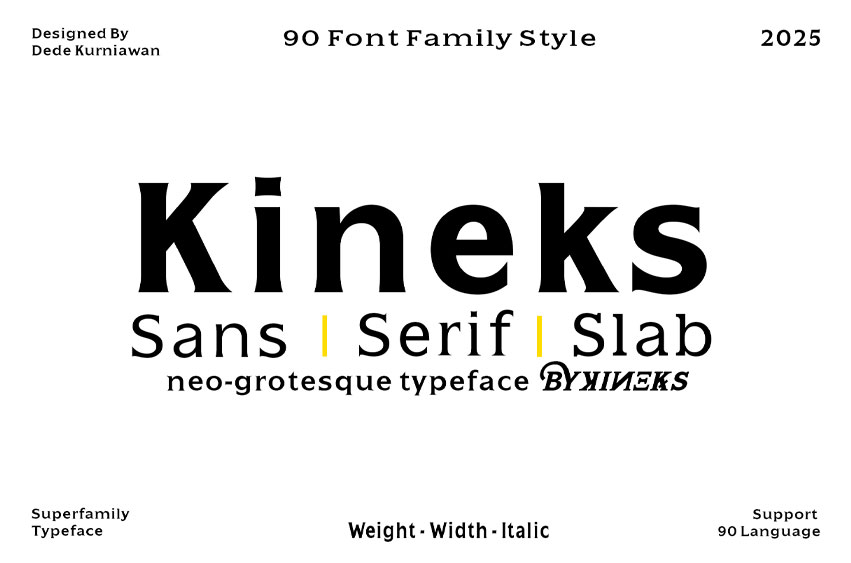
Kineks Font is a contemporary superfamily typeface designed to meet the demands of today’s creative projects across branding, editorial, digital, and beyond. With 90 font styles spanning Sans, Serif, and Slab, Kineks delivers unmatched versatility and consistency in a single package. Rooted in the neo-grotesque tradition, Kineks blends a strong typographic structure with refined detailing, resulting in a type system that is highly legible, modern, and distinctive. Each style is crafted with precision to balance aesthetics with functional readability, making Kineks a reliable tool for professional designers.
• 90 styles across Sans, Serif, and Slab
• Complete system of weights, widths, and italics
• Rooted in neo-grotesque tradition with modern refinements
• Supports 90+ languages for global communication
• Perfect for branding, editorial, UI/UX, advertising, and packaging
With its smart details and powerful presence, Kineks is more than just a typeface—it’s a complete design system. From bold headlines to refined body text, Kineks helps you communicate identity, story, and emotion through every letter.